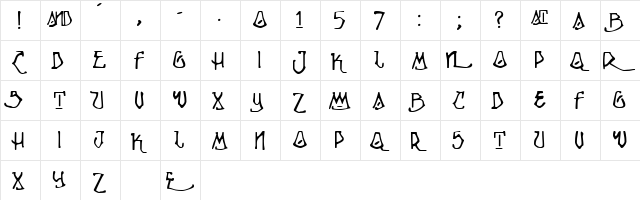
Ripple Regular
Design Context for Ripple Typeface
Ripple is a composed and adaptable typeface that performs quietly and consistently across a wide range of design contexts.